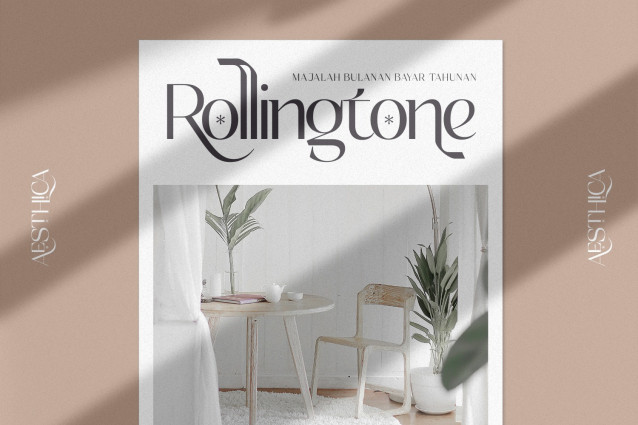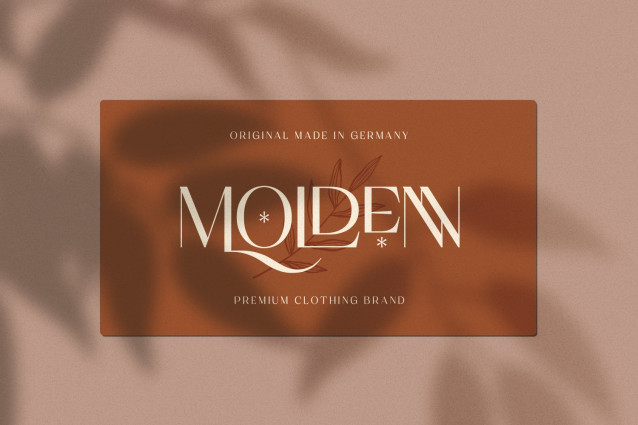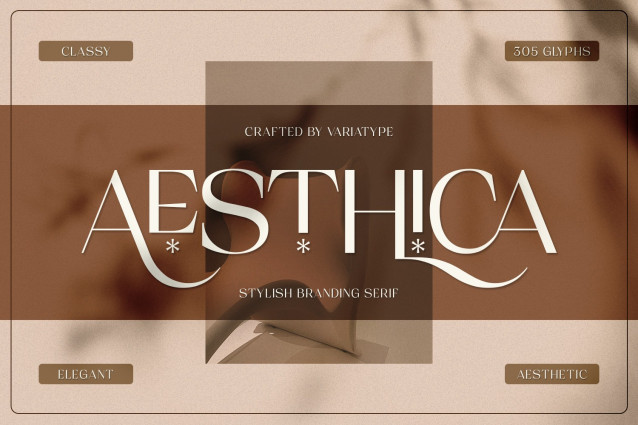
Aesthica Font
Aesthica Font is an elegant modern serif crafted for premium branding, refined editorial design, sophisticated logos, and high-end visual identities. With its graceful curves, luxurious ligatures, and 305 beautifully designed glyphs, Aesthica delivers a flowing aesthetic that effortlessly elevates any project. Perfect for beauty products, restaurant logos, furniture brands, fashion labels, boutique brands, magazines, packaging, and upscale creative work, this font blends contemporary style with artistic refinement, making every word feel more expressive, classy, and visually captivating.